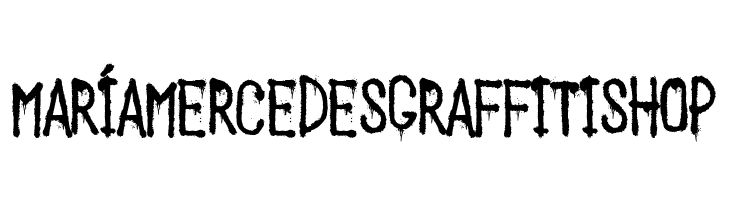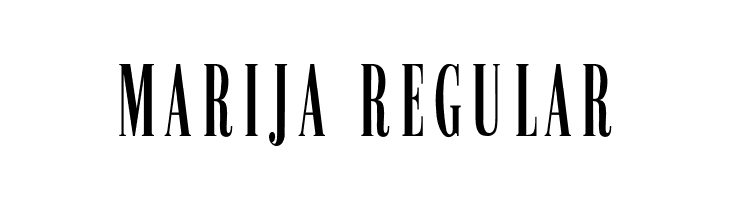
A bold, graffiti-inspired font with a rough, hand-drawn texture.
A bold, decorative font with intricate, vintage-inspired details.
A playful, bold outline font with a hand-drawn, cartoonish style.
A bold, modern sans-serif font with a clean and professional appearance.
An elegant script font with flowing, interconnected letters and decorative flourishes.
An ornate decorative font with uppercase letters in floral wreaths.
A bold, modern font with strong, dramatic strokes and a slightly decorative style.
A bold, dynamic font with a modern yet vintage charm.
A bold, lively script font with a handwritten feel and playful character.
A tall, elegant serif font with high contrast and narrow width.